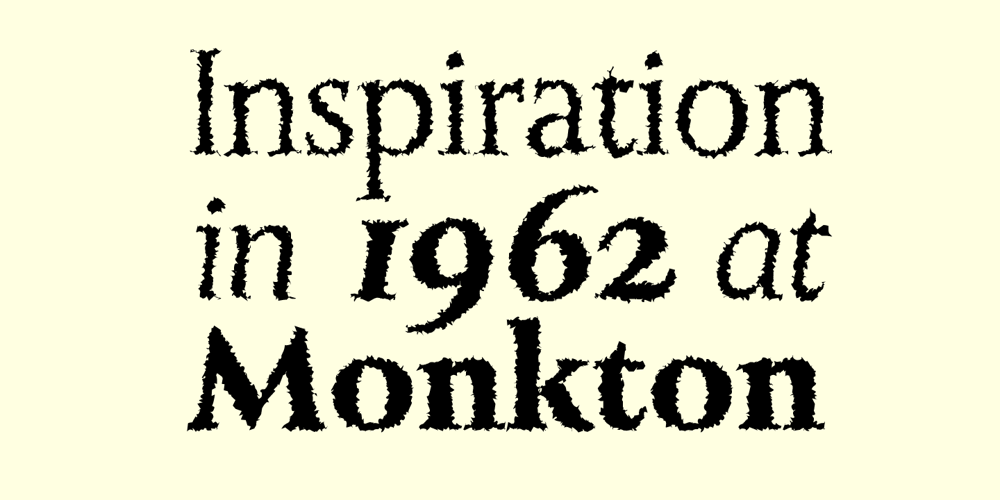
Monkton Aged Font Family was designed by Adrian Williams and published by Club Type. Monkton Aged contains 4 styles and family package options. This antique-aged version of Monkton can be used to imitate old letterpress printed documents such as old English text. The rough edges resemble ink spread on paper to give an old look.The inspiration for this typeface family came from my childhood experiences at Monkton, amidst an historic part of the South West of England.Studies of the original incised capitals of the Trajan column in Rome were analysed and polished for this modern version. The lower case letterforms and numerals were then created in sympathy, taking their proportions from the incised letters of local gravestones.Its name honours not only the area where the original alphabet was conceived and drawn, but also the people responsible for fostering my initial interest in letters.